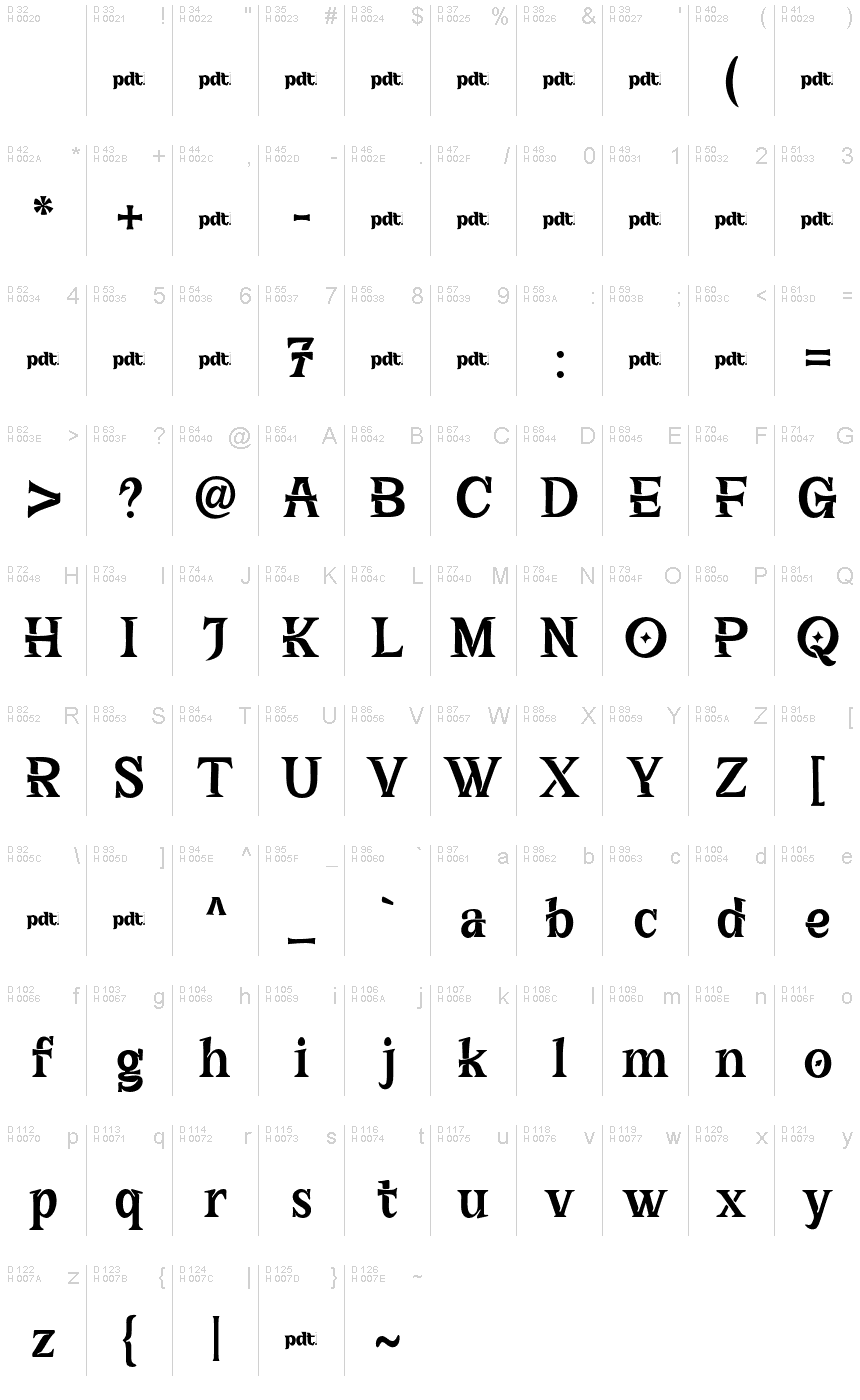
BOOERTRIAL-Regular
Express your creativity with Booer, a powerful and modern gaming font designed by Rozi. With its semi-expanded width, Booer display captures the essence of the gaming world in a sharp and contemporary package.
Whether you're working on a film, game, or streaming event, Booer is the perfect solution for projects that require a unique theme. Its bold and exciting style provides room for creativity to flourish. What sets Booer apart is its powerful gaming style that exudes dominance and modernity. The font offers two style families - Regular and Italic - allowing you to adapt your designs to various contexts, whether needing a strong presence or an elegant touch.